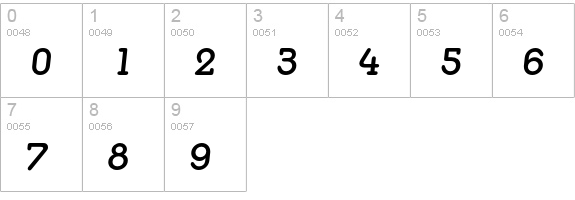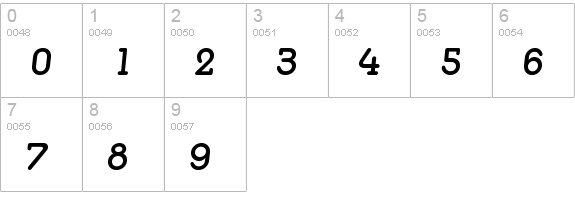
MediaSerifEF-MediumItalic Font Details
MediaSerifEF-MediumItalic is a sophisticated and elegant font that exudes a sense of modernity and creativity. Its slanted italic style adds a touch of flair and sophistication to any design project. The medium weight strikes the perfect balance between boldness and subtlety, making it ideal for both headlines and body text. What's even better is that MediaSerifEF-MediumItalic is available for free download at FontsMarket.com. This means you can easily access this stylish font for your personal and commercial projects without any cost. Whether you're working on a website, logo, poster, or any other design, MediaSerifEF-MediumItalic is a versatile choice that will elevate your work to the next level. Don't miss out on the opportunity to add this sleek and professional font to your collection today!